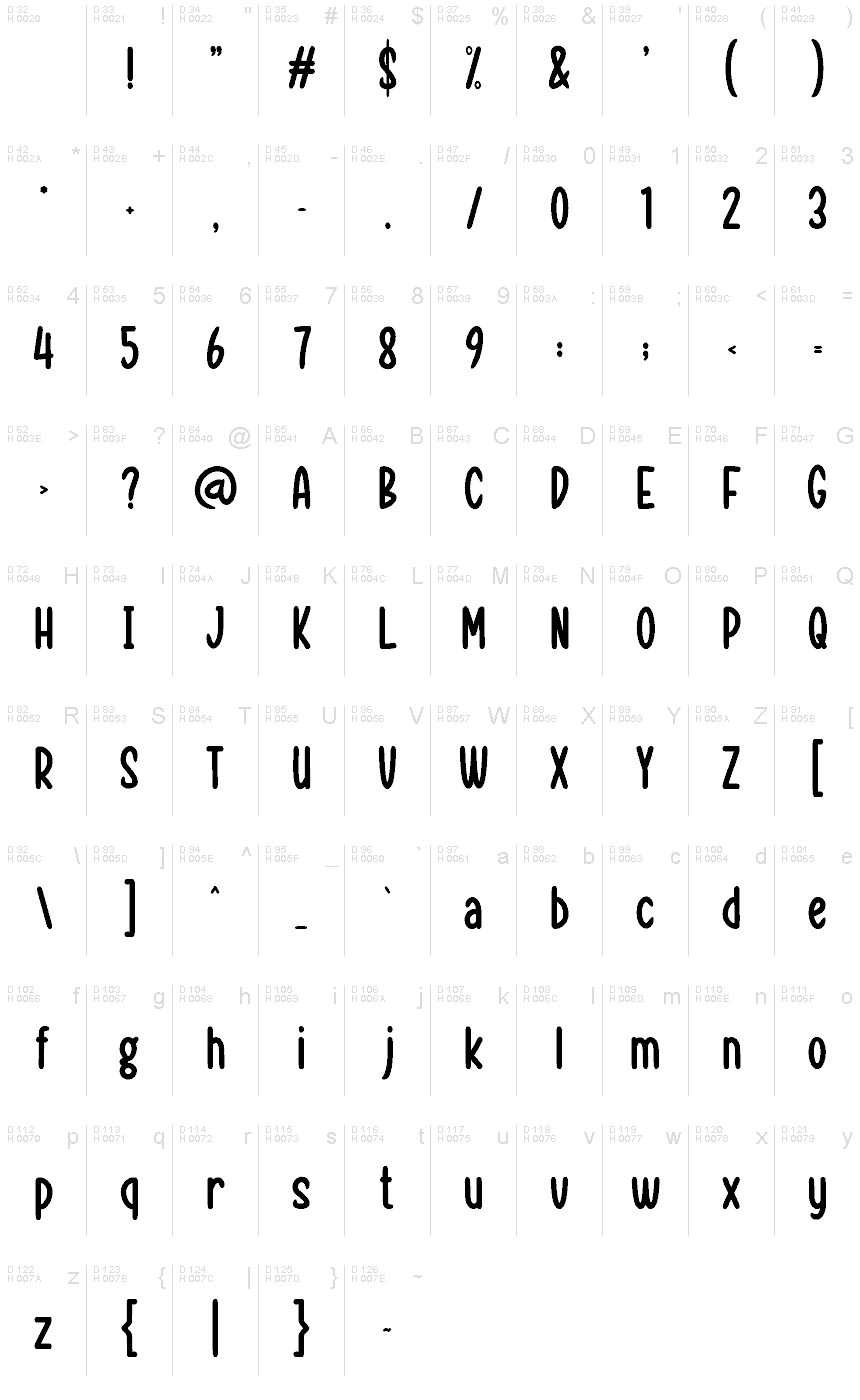
HOLIDAY ZONE
Holiday Zone font by Gilang Ternadho is a beautiful free handwritten font that can suit a wide appeal. Its casual aesthetic and approachable feel are accompanied by slight retro influences for a modern-looking, highly legible typeface. In addition to making it attractive, its thin profile makes it an ideal choice for projects with small space constraints too.